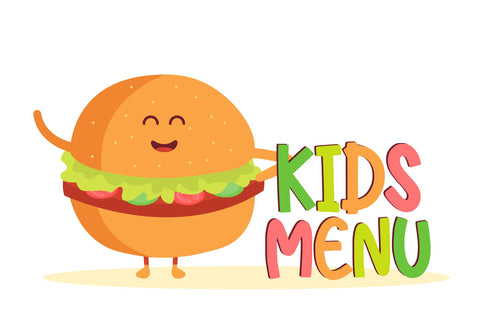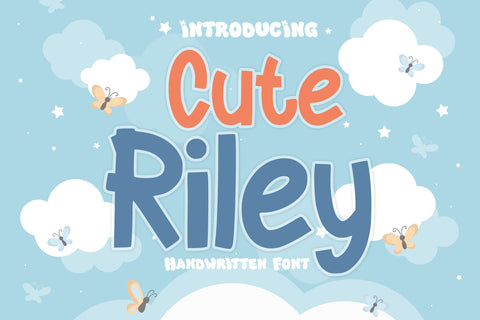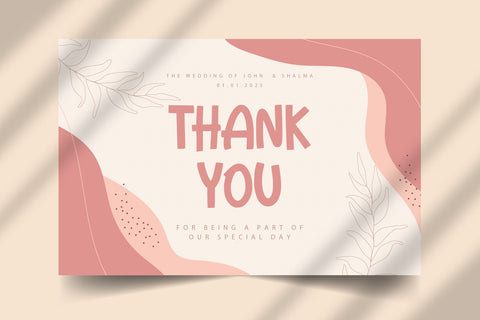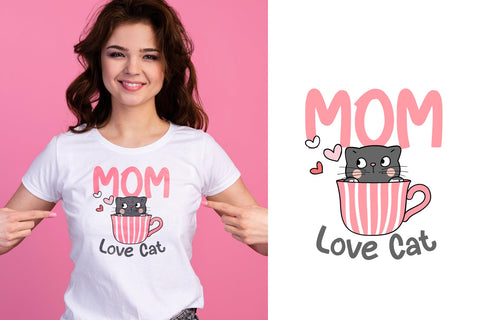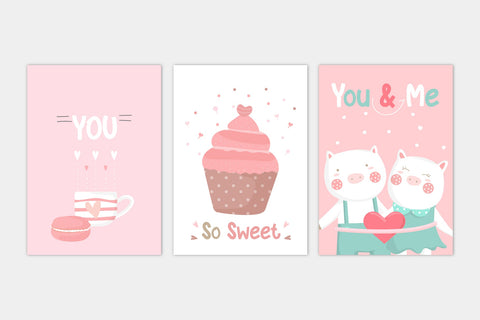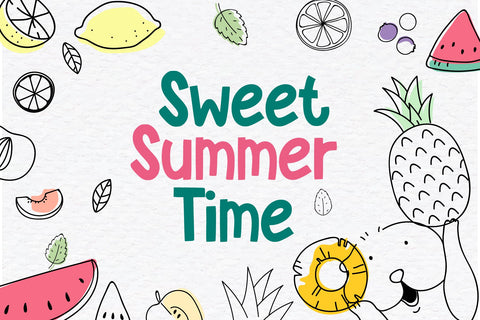
Cute Riley Font
Cute Riley is a handwritten Sans Serif font with a cute and bright style that feels easy, casual, and friendly. Can be used in a variety of applications. perfect for children's projects, blog posts, logos, branding, ads, invitations, greeting cards, planners, photo albums, decorations, and much more. This font will be a wonderful asset to your fonts library as it has the potential to enhance any creation. Add it to any of your designs and enjoy the results!